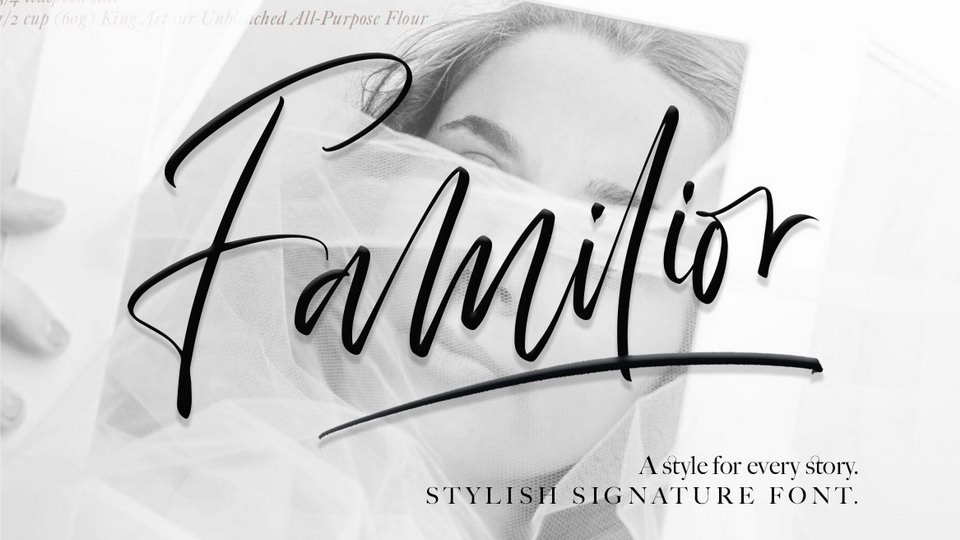
Feb 10, 2025Script & HandwrittenFamilior Font Familior is a handwritten signature style font with alternates, natural ligatures and swashes. Inky and expressive yet readable and functional, this typeface is designed to look perfect for signature logos. Font DetailsDesigned by: AgniardiWebsiteLicense: Free for personal use Download Familior FontFile size: 165.64 KBCreated: February 16, 2025Updated: February 16, 2025 Download Explore similar fonts Kaflina Oblique Font Golden Authentic Font Nice Memory Font Meghyle Font Raleigh Handwriting Font Heristella Font # Bouncy# Calligraphy# Handwriting# Signature More fonts by AgniardiBlushing FontNatural Signature FontAskana Font